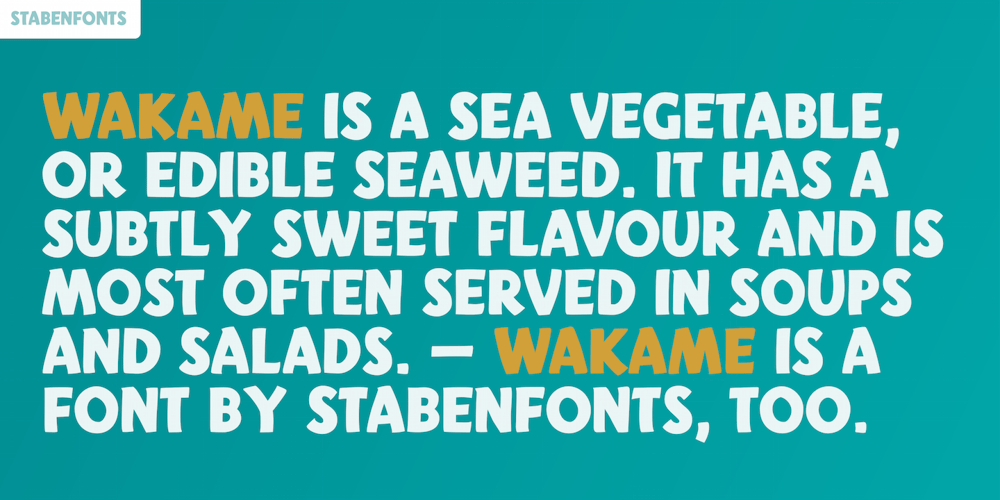
Wakame
Wakame font
Wakame Font Family was designed by Johannes Steil and published by Stabenfonts. Wakame contains 1 styles and family package options. Wakame is a friendly, playful, all uppercase font for book cover, display, packaging, poster, or whatever you can imagine. Each letter has three variations, which are automatically changed, when repeated. Hey, not only when side-by-side, but also if there are up to ten characters in between. Spice up your font menu with Wakame and stabenfonts!